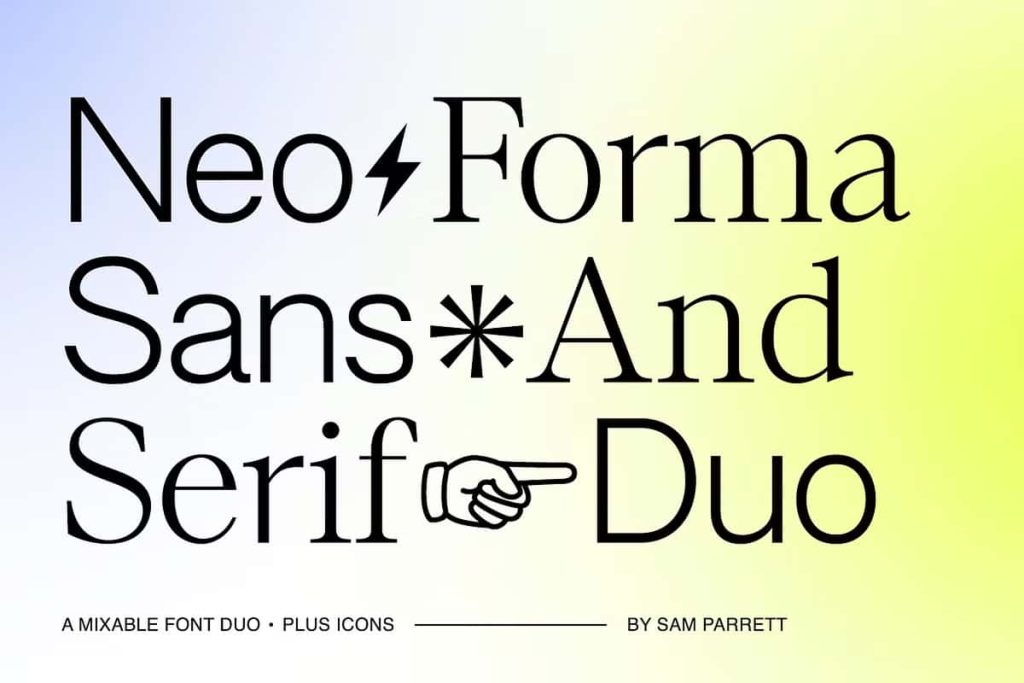
Neo Forma Font Duo
Neo Forma Font Duo delivers a perfectly balanced combination of modern sans and serif fonts, crafted to work seamlessly together in every design environment. Instead of struggling to choose between a clean sans serif or a refined serif typeface, you can confidently use both. Neo Forma eliminates the guesswork and gives you a harmonious pairing built with precision and consistency.
This font duo empowers designers to create cohesive typography systems with ease. Carefully developed side-by-side, each font shares matching weights, aligned metrics, and complementary proportions. As a result, your layouts look polished, intentional, and professionally structured across print and digital platforms.
A Seamless Sans and Serif Combination
Neo Forma blends the clarity of a modern sans serif with the elegance of a contemporary serif. The sans version projects simplicity, minimalism, and confidence. It communicates clearly and works exceptionally well in headlines, user interfaces, and corporate layouts. Meanwhile, the serif version introduces sophistication, authority, and timeless appeal.
Together, they create a powerful typographic contrast. You can pair bold sans headlines with refined serif body text, or reverse the roles for a more editorial feel. Because both fonts share the same structural foundation, they align perfectly without awkward spacing or inconsistent proportions.
Designed Side-by-Side for Perfect Harmony
Unlike random font pairings, Neo Forma was intentionally built as a unified system. Designers crafted both the sans and serif styles simultaneously to ensure balance in stroke weight, x-height, spacing, and overall rhythm. This thoughtful process guarantees smooth transitions between styles.
Matching weights allow you to switch between sans and serif without disrupting visual flow. Consistent metrics maintain alignment across headings, subheadings, and body text. These details strengthen readability while preserving a refined aesthetic.
Balanced Weights and Metrics
Neo Forma offers coordinated weight options that give you flexibility and control. Whether you choose light, regular, medium, or bold styles, both the sans and serif versions mirror each other in thickness and spacing. This design consistency speeds up your workflow and enhances typographic harmony.
You can confidently build branding systems, editorial grids, and web interfaces without constantly adjusting line heights or kerning. Neo Forma supports efficiency while elevating visual quality.
Ideal for Branding and Identity Systems
Strong branding relies on consistent typography. Neo Forma Font Duo equips you with a versatile toolkit for building memorable brand identities. Use the sans serif for logos, taglines, and modern visual elements. Apply the serif for brand storytelling, premium packaging, or formal communications.
This combination allows you to establish hierarchy and reinforce brand personality. The sans conveys innovation and clarity. The serif expresses tradition and refinement. Together, they communicate balance and professionalism.
Professional Yet Contemporary Appeal
Neo Forma adapts to various industries, including fashion, technology, publishing, architecture, and corporate branding. Its modern construction feels current and relevant, while the serif details maintain a sense of trust and credibility.
Designers can use this font duo to craft visual identities that feel confident, stylish, and thoughtfully structured. It supports long-term brand growth by maintaining consistency across marketing materials, websites, and printed assets.
Perfect for Editorial and Web Design
Editorial projects demand strong hierarchy and readability. Neo Forma delivers both. Use the serif for long-form articles, magazines, or book layouts to enhance reading comfort. Pair it with the sans for impactful titles, captions, and navigation elements.
In web design, clarity becomes essential. The sans serif version ensures crisp legibility on screens of all sizes. Meanwhile, the serif introduces character and warmth to landing pages and blog content. Because both fonts share aligned metrics, your website maintains visual consistency from header to footer.
Versatile for Print and Digital Applications
Neo Forma Font Duo performs beautifully across different media formats. In print, it enhances brochures, annual reports, invitations, and packaging designs. In digital environments, it strengthens websites, social media graphics, email campaigns, and presentation slides.
This flexibility allows designers to maintain one cohesive typographic system across all communication channels. Instead of mixing unrelated fonts, you can rely on Neo Forma to deliver unity and professional polish.
Why Choose Neo Forma Font Duo?
- Modern sans and serif pairing designed as a unified system
- Matching weights and metrics for seamless integration
- Strong readability for both print and digital formats
- Perfect for branding, editorial, and web design projects
- Balanced combination of clarity and elegance
Neo Forma Font Duo simplifies typography decisions while strengthening your creative output. It gives you structure, flexibility, and aesthetic harmony in one complete package. Add Neo Forma to your design library and build sophisticated, consistent layouts with confidence and precision.